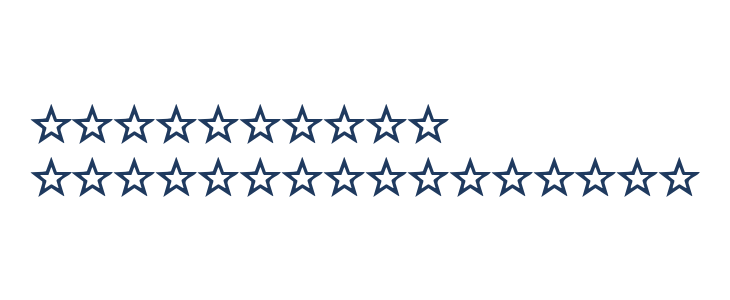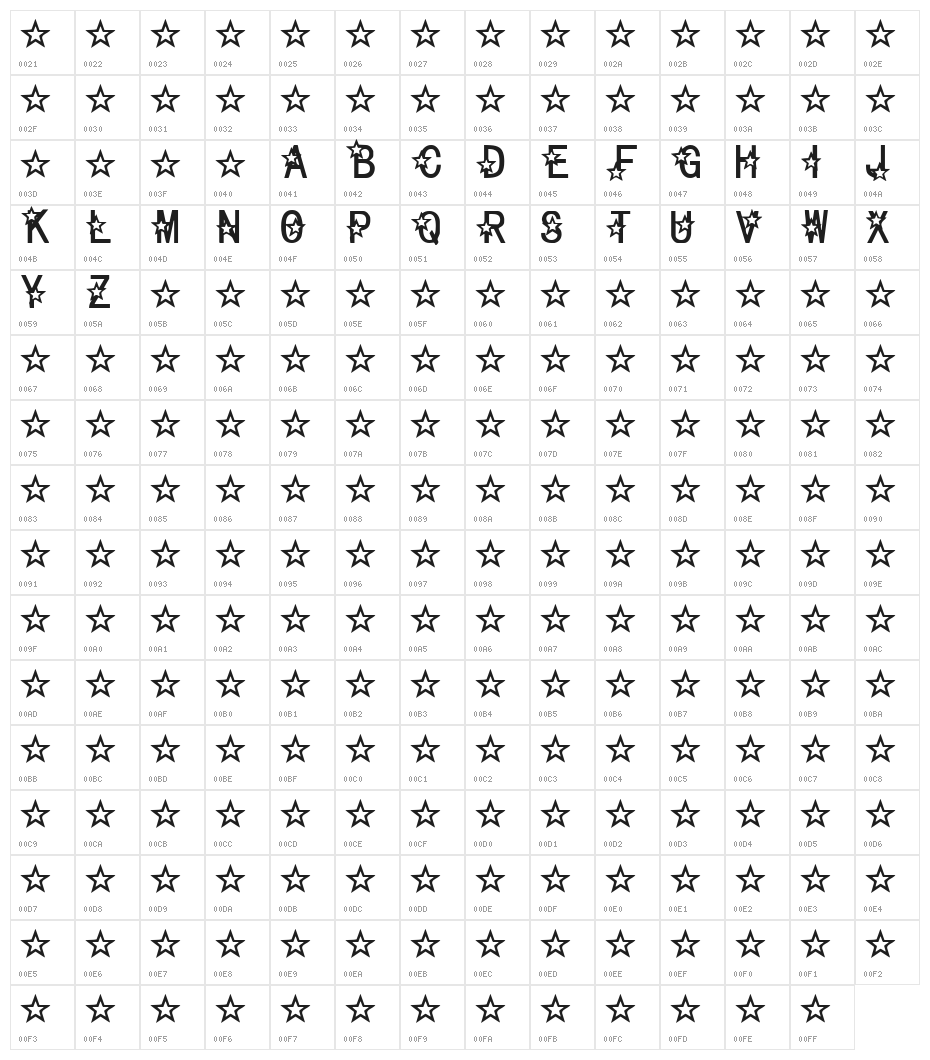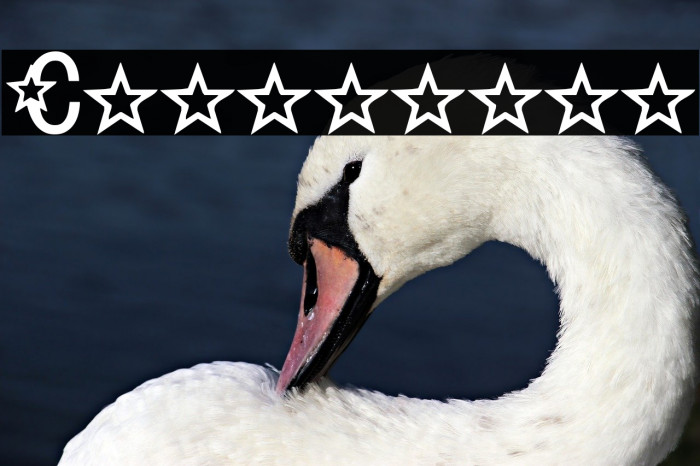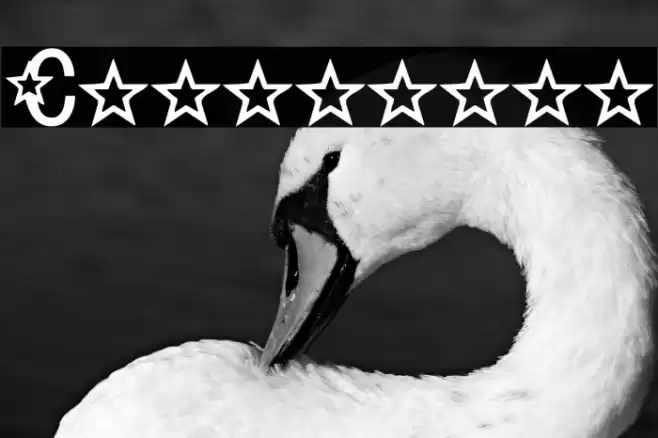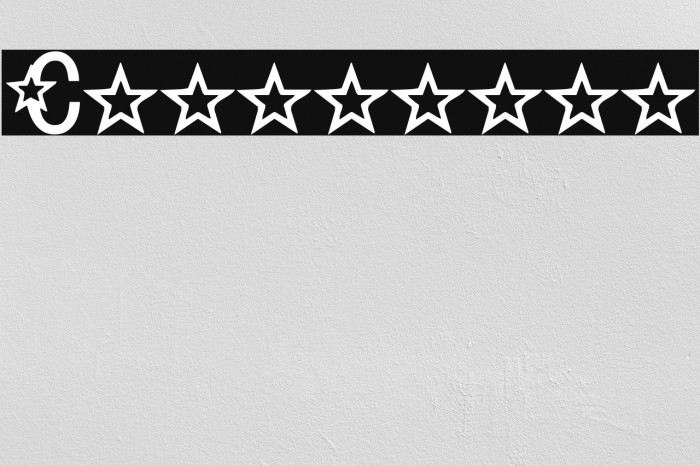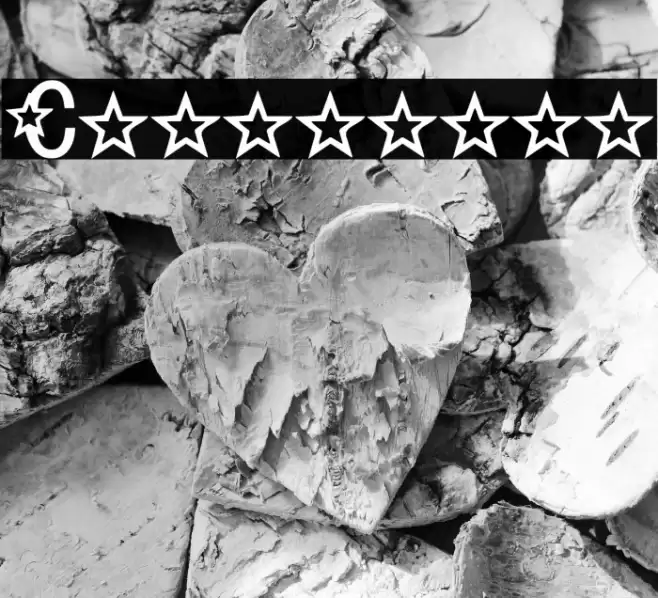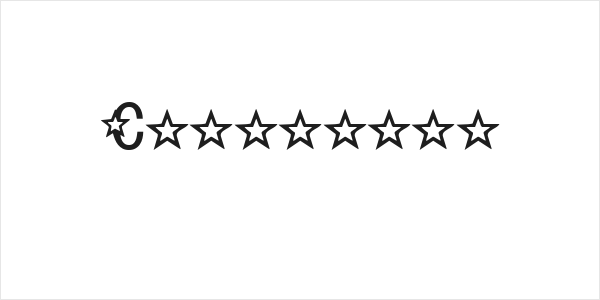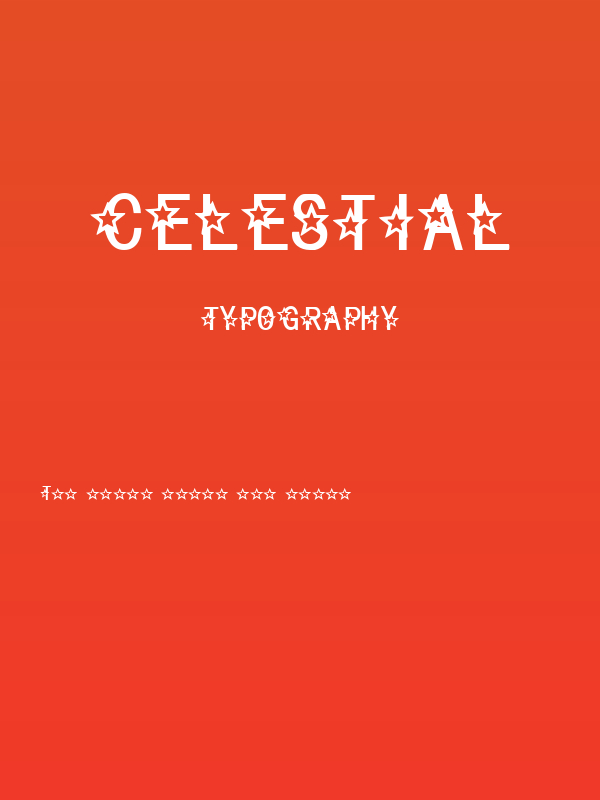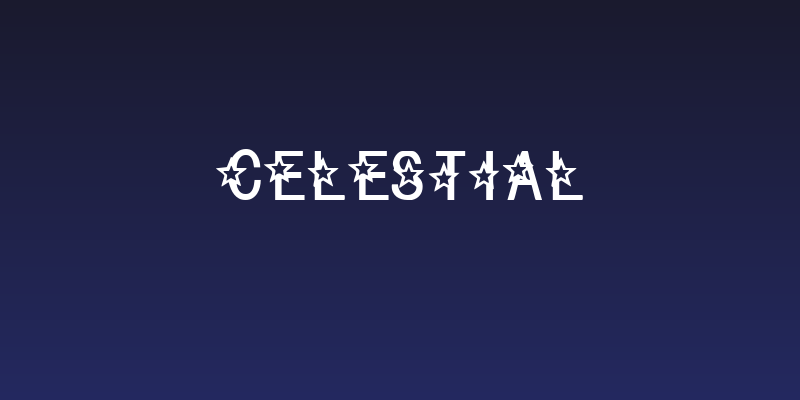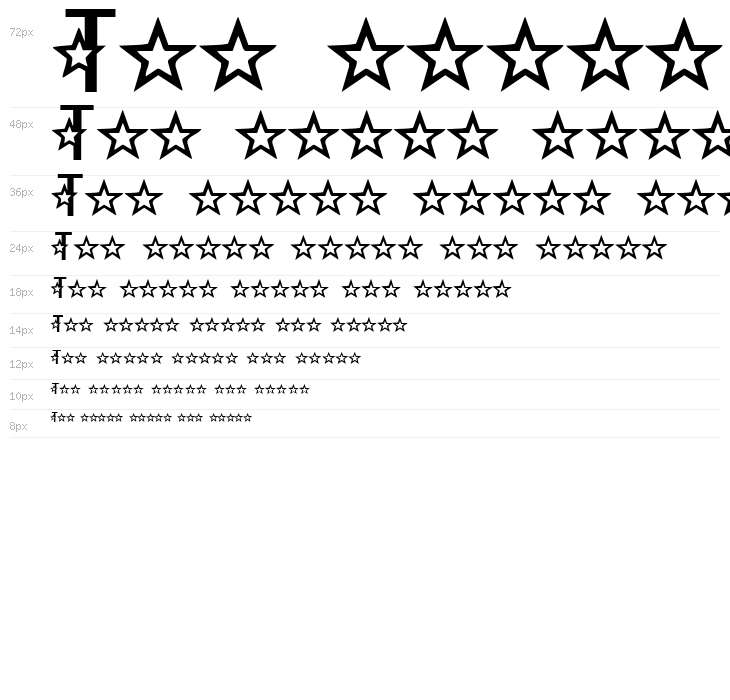
Celestial Font
Celestial Description
This decorative font features uppercase letters adorned with star motifs, creating a celestial and whimsical appearance. Each letter is bold and prominent, with stars integrated into the design, making it ideal for eye-catching displays. The font lacks lowercase letters and numbers, focusing solely on uppercase characters and special symbols. Its unique style is perfect for projects that require a touch of fantasy or a cosmic theme. The star elements add a playful and imaginative flair, making it suitable for creative and artistic endeavors.
| Proposed Projects | Ideal for party invitations, children's book covers, event posters, and themed merchandise. |